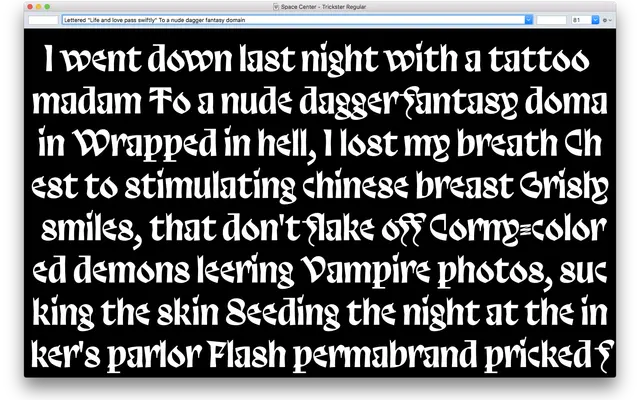
Trickster
Phantom Foundry · Jean-Baptiste Morizot · 2017
A free blackletter with roots in Merovingian script, blending historical calligraphic forms with contemporary details.
Released in 2017 with the Velvetyne collective, Trickster draws on Merovingian writing and blackletter tradition while incorporating contemporary shapes. The designer describes the combination as deliberately difficult to categorise, occupying a space between historical script and modern experimentation. Available as a free download via Velvetyne.
The designer describes it as a blend of Merovingian writing, blackletter influences and contemporary shapes, placing it squarely in the blackletter tradition despite its hybrid nature.